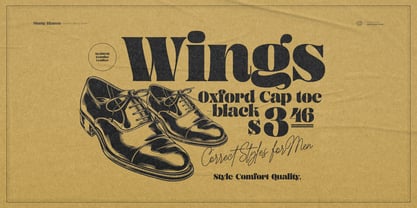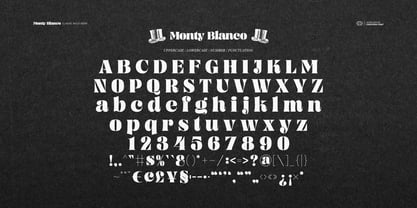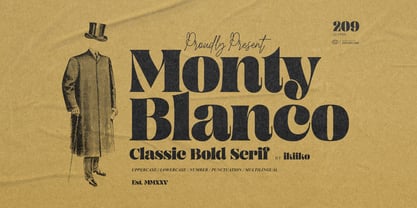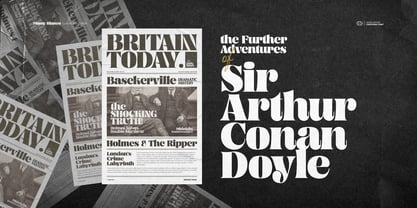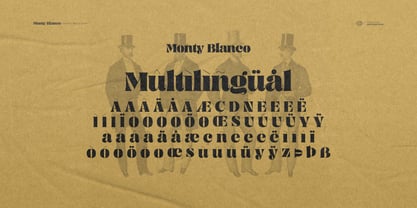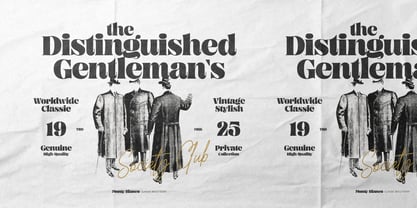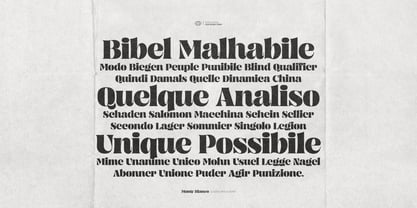
Monty Blanco
by IKIIKOWRK
The Monty Blanco Font Family was designed by Andhika Pradana and published by IKIIKOWRK. Monty Blanco contains 1 styles. More about this family
Proudly present Monty Blanco - Classic Bold Serif, created by ikiiko.
Step into the refined elegance of the 1920s with Monty Blanco, a classic bold serif font designed for distinguished gentlemen and connoisseurs of style. This typeface embodies vintage charm and sophisticated masculinity, merging elegance and boldness to exude timeless luxury. Inspired by the glamour of the Ritz and the opulence of the roaring twenties, Monty Blanco is perfect for creating designs that radiate class, confidence, and a touch of vintage distinction. Ideal for branding, headlines, or any project seeking a masculine yet elegant aesthetic.
This font is perfect for a vintage posters, retro logo, gentlemen brand, barbershop stuff, packaging, food and beverages, book cover, social media ads, branding projects, or simply stylish text overlay to any background image that creating striking titles and headings that demand attention.
• Uppercase & Lowercase
• Numbers & Punctuation
• Multilingual Support